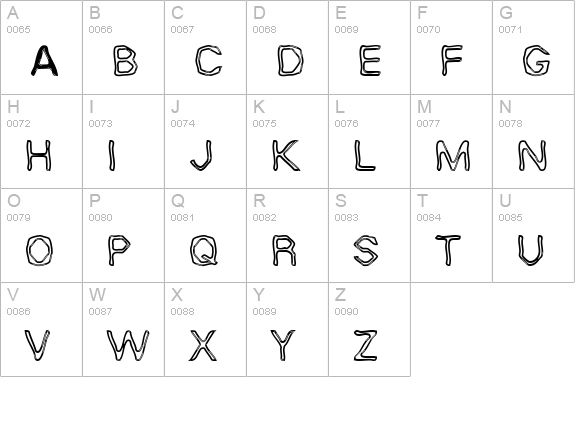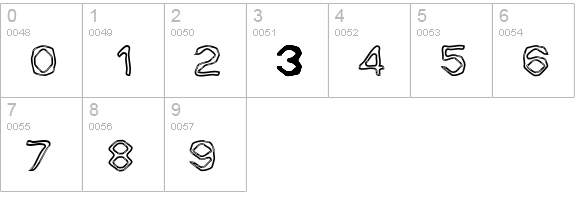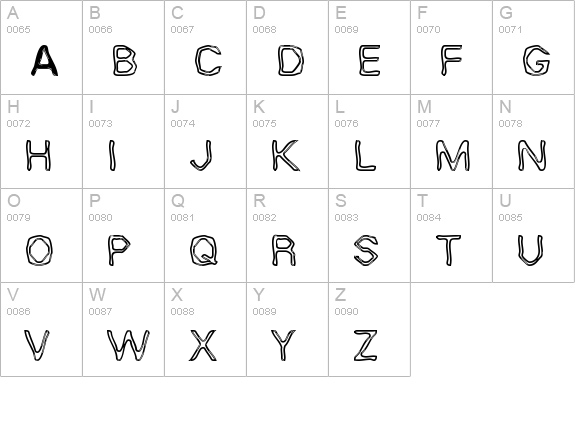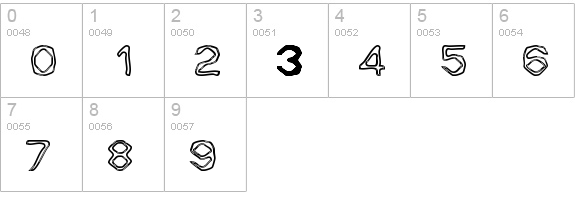
WhallyWhilly Font Details
Introducing WhallyWhilly, a captivating and whimsical font that is sure to bring a touch of playfulness to any project. With its unique and charming design, WhallyWhilly is perfect for adding a delightful twist to your designs, whether it be for invitations, posters, logos, or any other creative endeavor. This free-spirited font features a combination of curvaceous and bold letterforms, creating a harmonious balance between elegance and liveliness. Each character is carefully crafted, with intricate details that add depth and character to every word. WhallyWhilly is not only visually appealing, but also highly versatile. Its friendly nature makes it suitable for a wide range of themes and purposes. From children's books to branding projects, this font effortlessly adapts to any context, instantly capturing the attention and imagination of viewers. But what makes WhallyWhilly even more remarkable is the fact that it is freely available to download at FontsMarket.com. Yes, you read that right - you can enhance your design projects with this delightful font without spending a penny. FontsMarket.com offers a vast collection of high-quality fonts, and WhallyWhilly is just one of the many gems waiting to be discovered. So, why wait? Unleash your creativity and infuse your designs with the whimsical charm of WhallyWhilly. Download it for free at FontsMarket.com and let your imagination run wild. Whether you're a seasoned designer or just starting your creative journey, this font is sure to become a beloved tool in your arsenal. Embrace the magic of WhallyWhilly and watch your designs come to life.